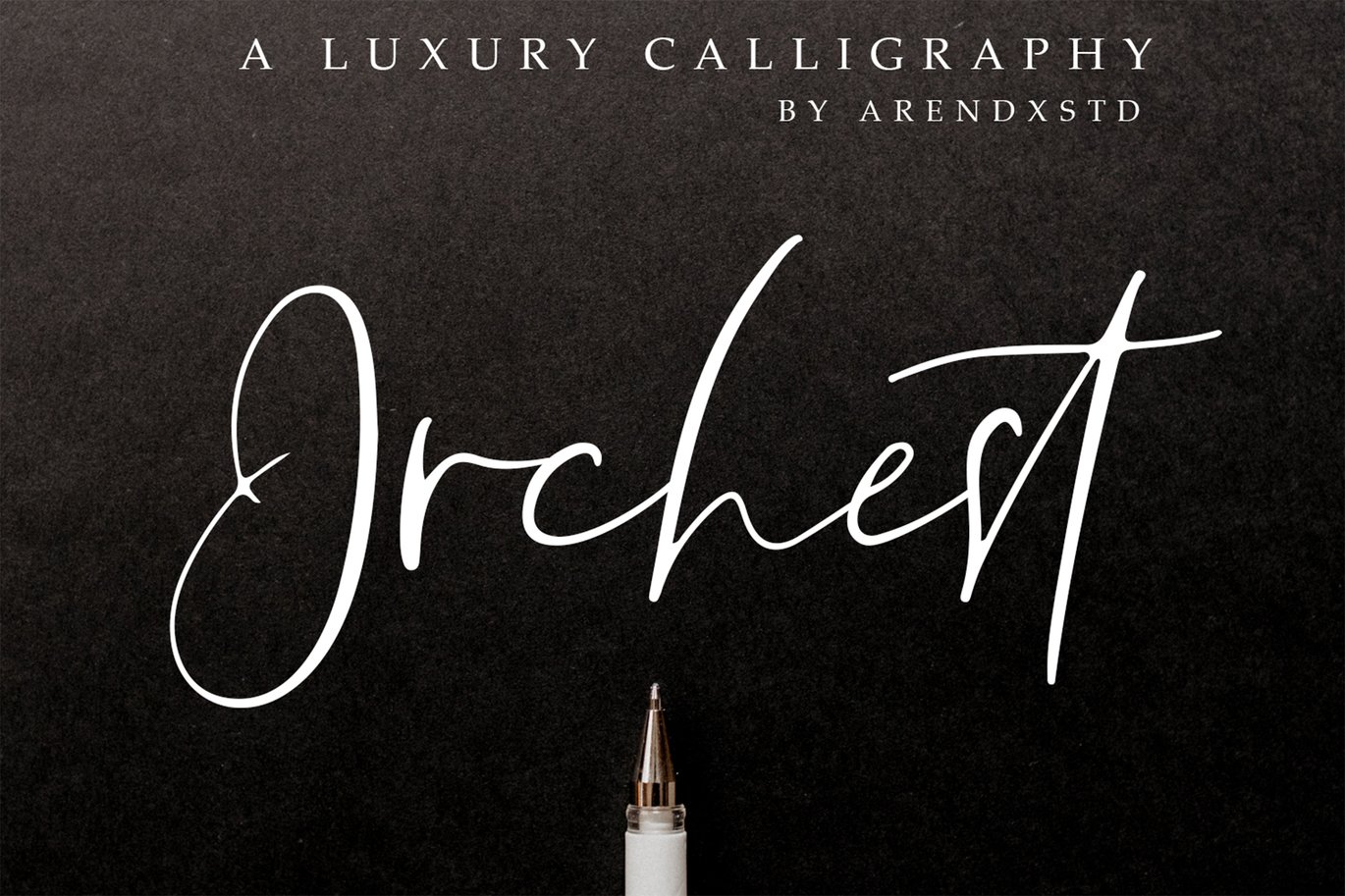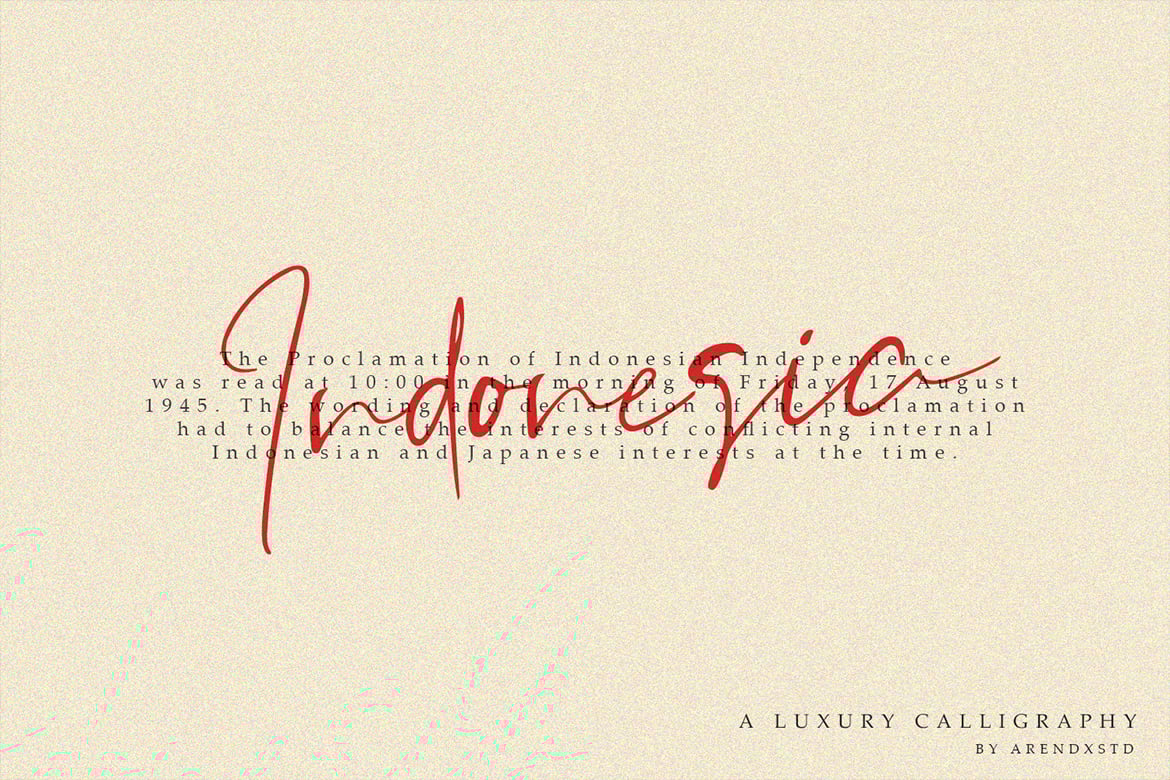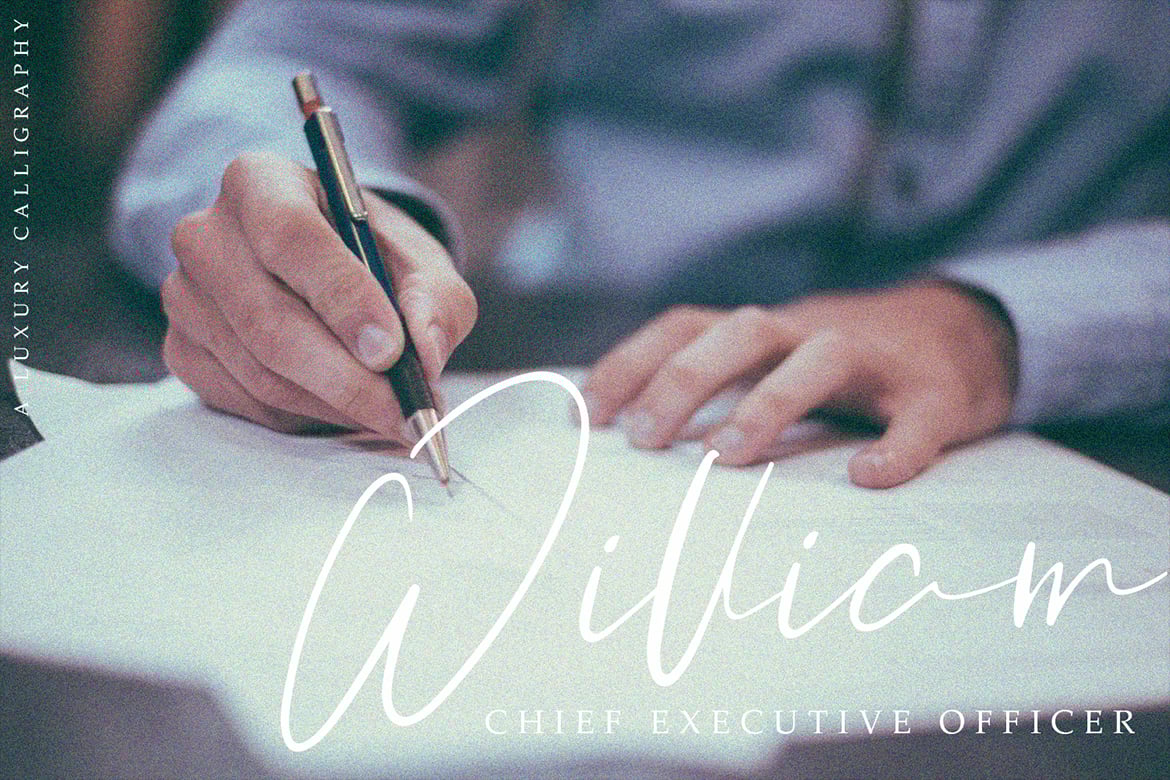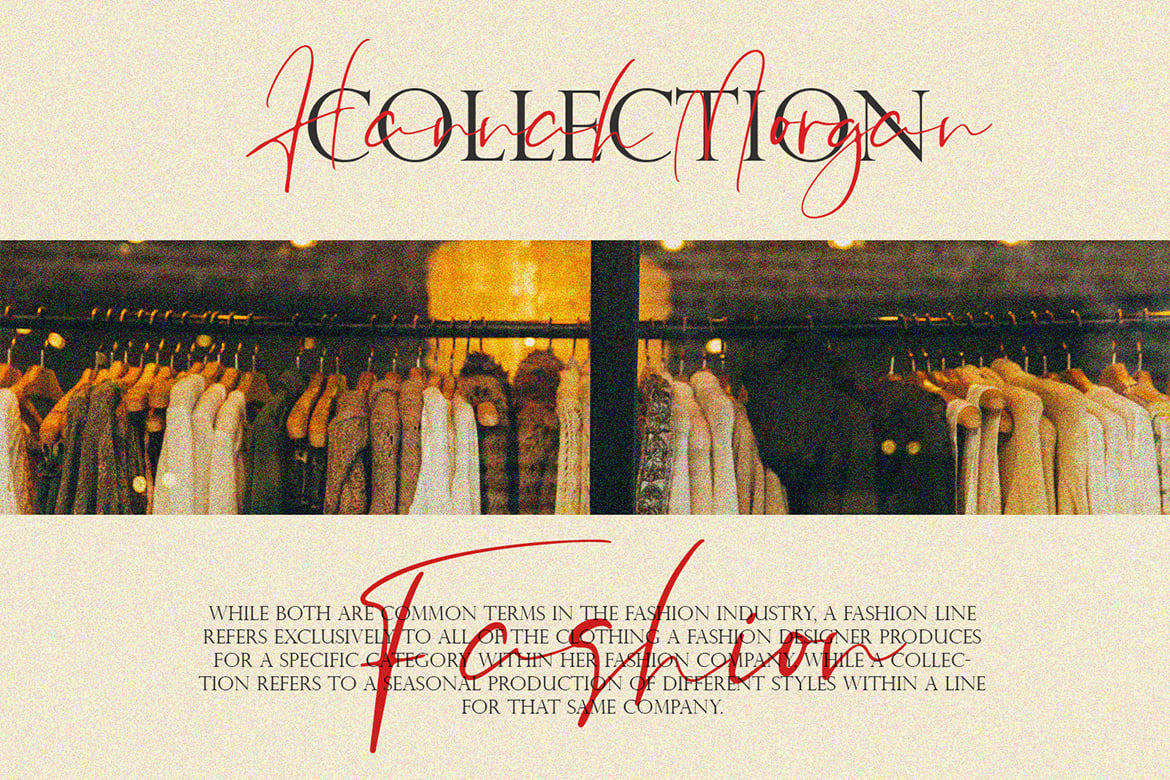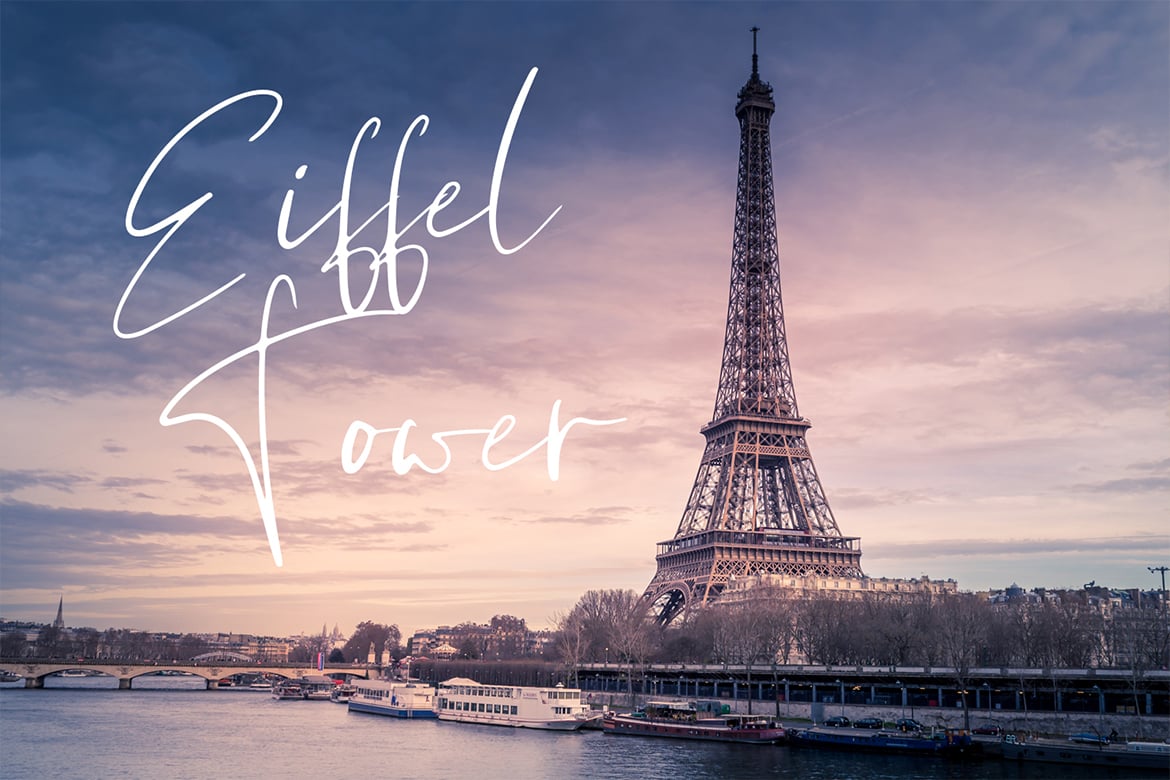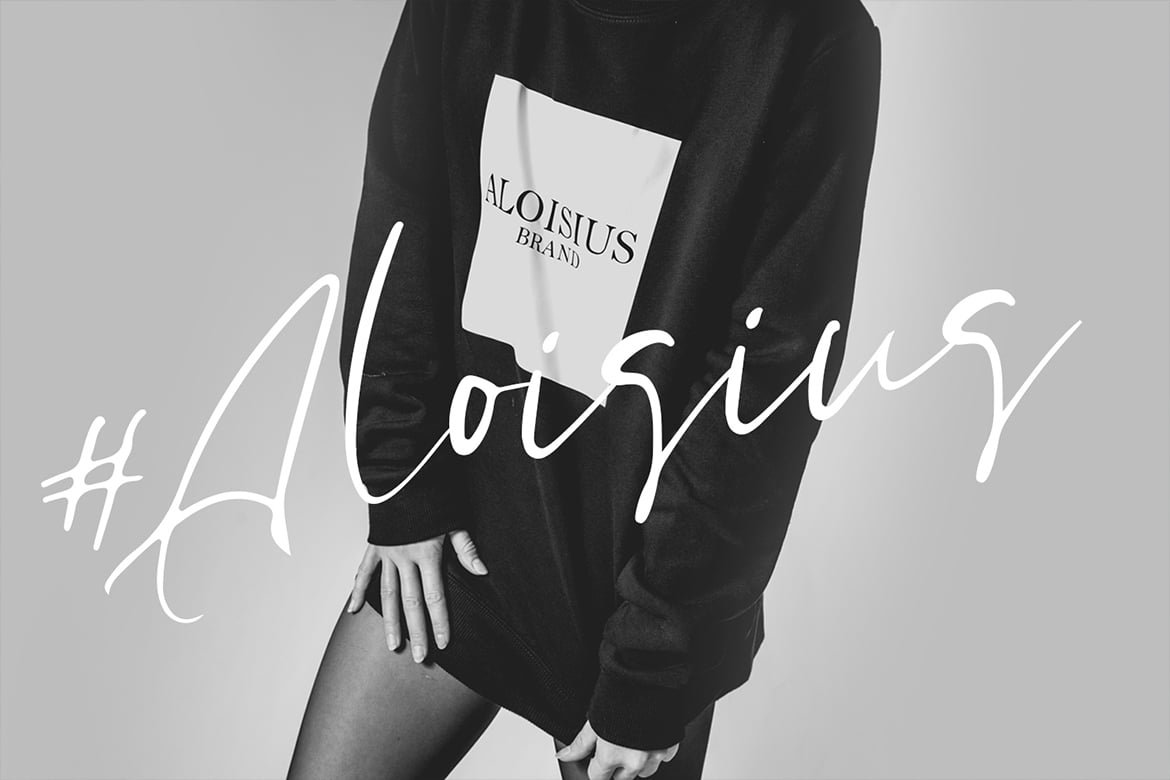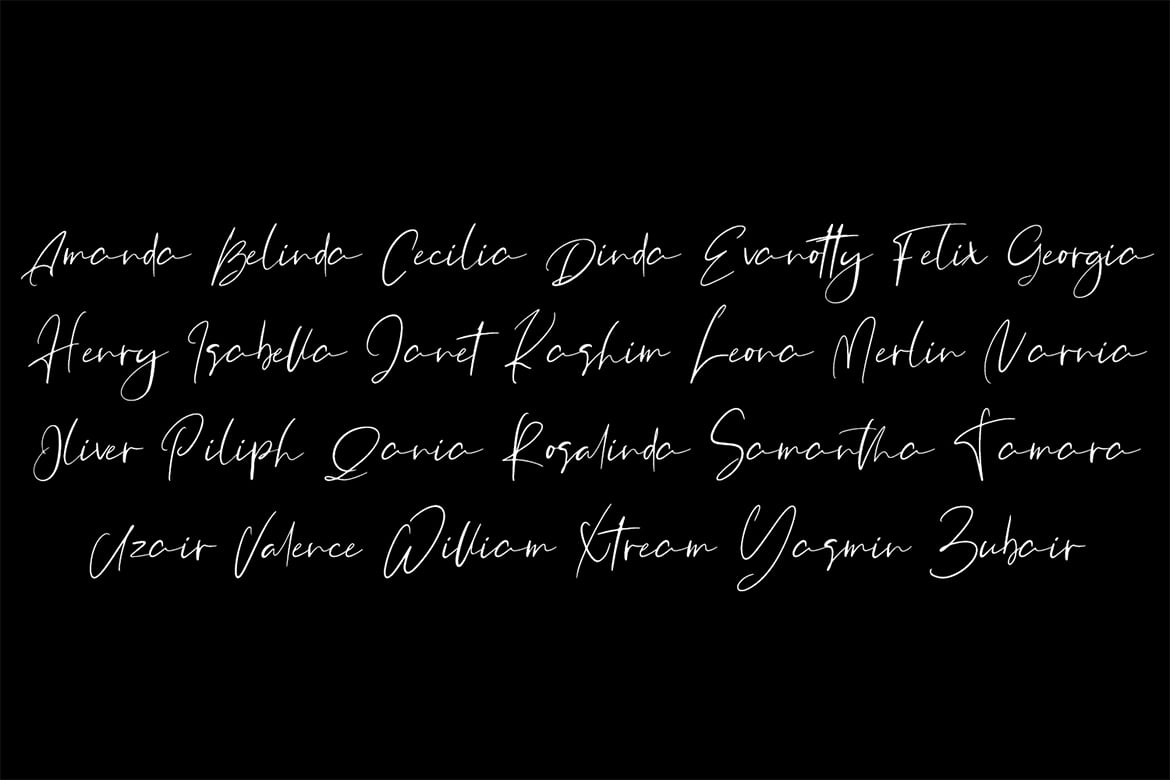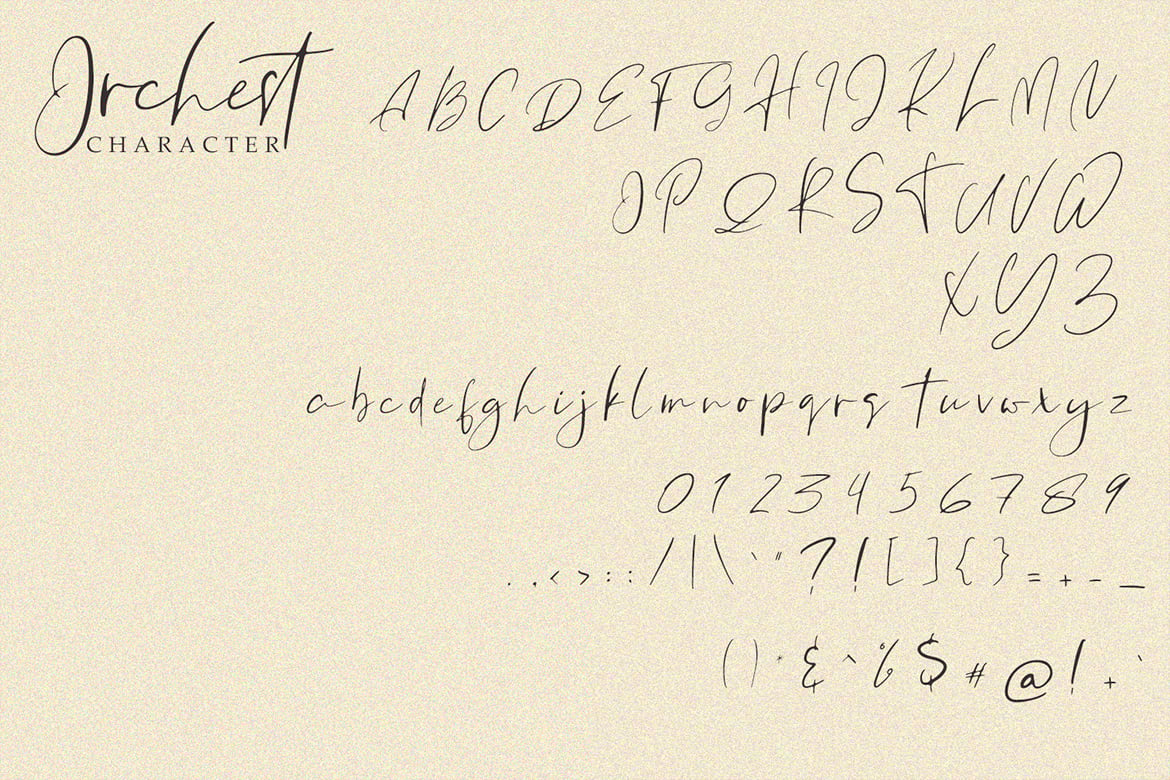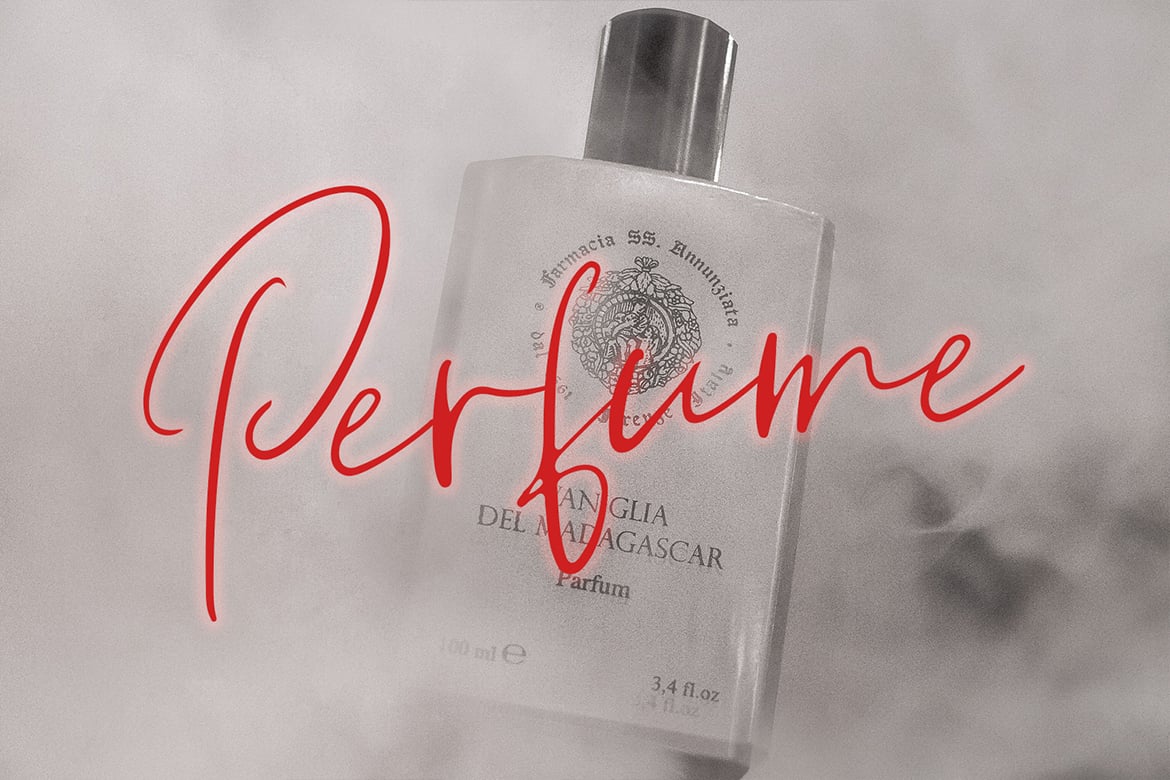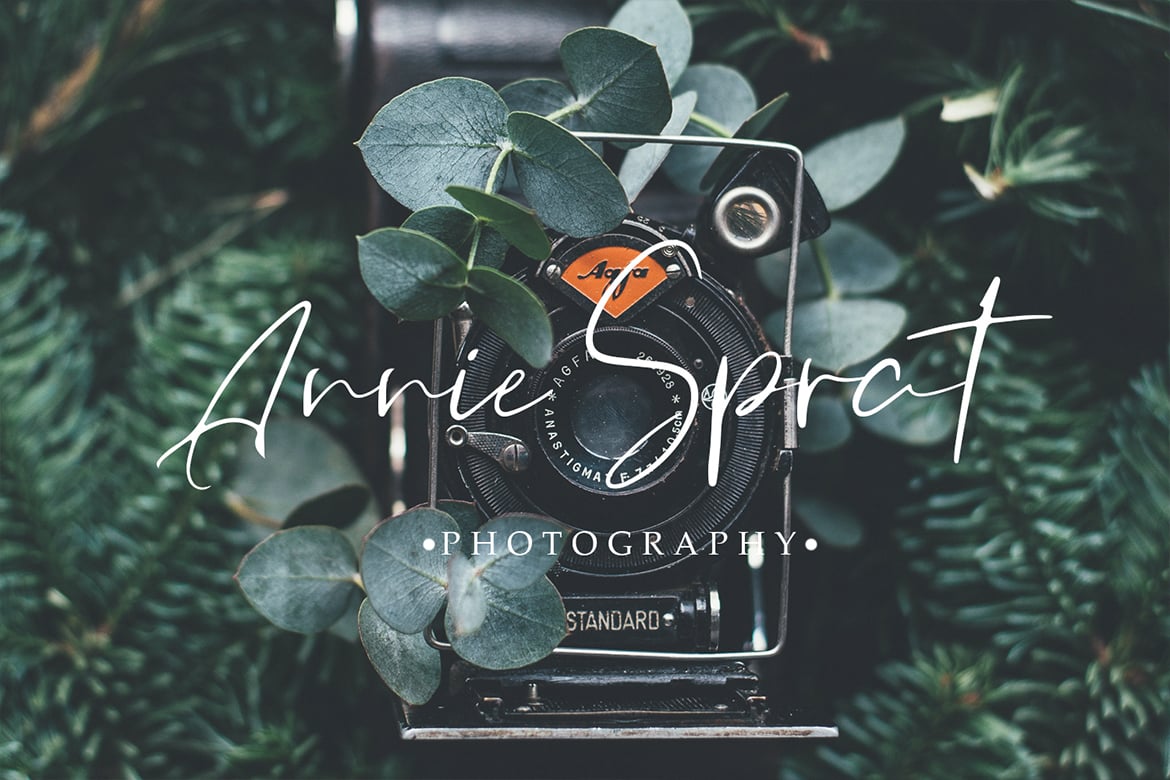
Orchest Luxury Calligraphy Font
Orchest is a Luxury Caliigrphy that is luxurious in a casual and distinctive style that is perfect for your branding design, and will also be very beautiful in your wedding invitations and business cards and especially for your brand name logotype
Orchest has beautiful Uppercase and Lowercase, figures and ligature standards that are very realistic